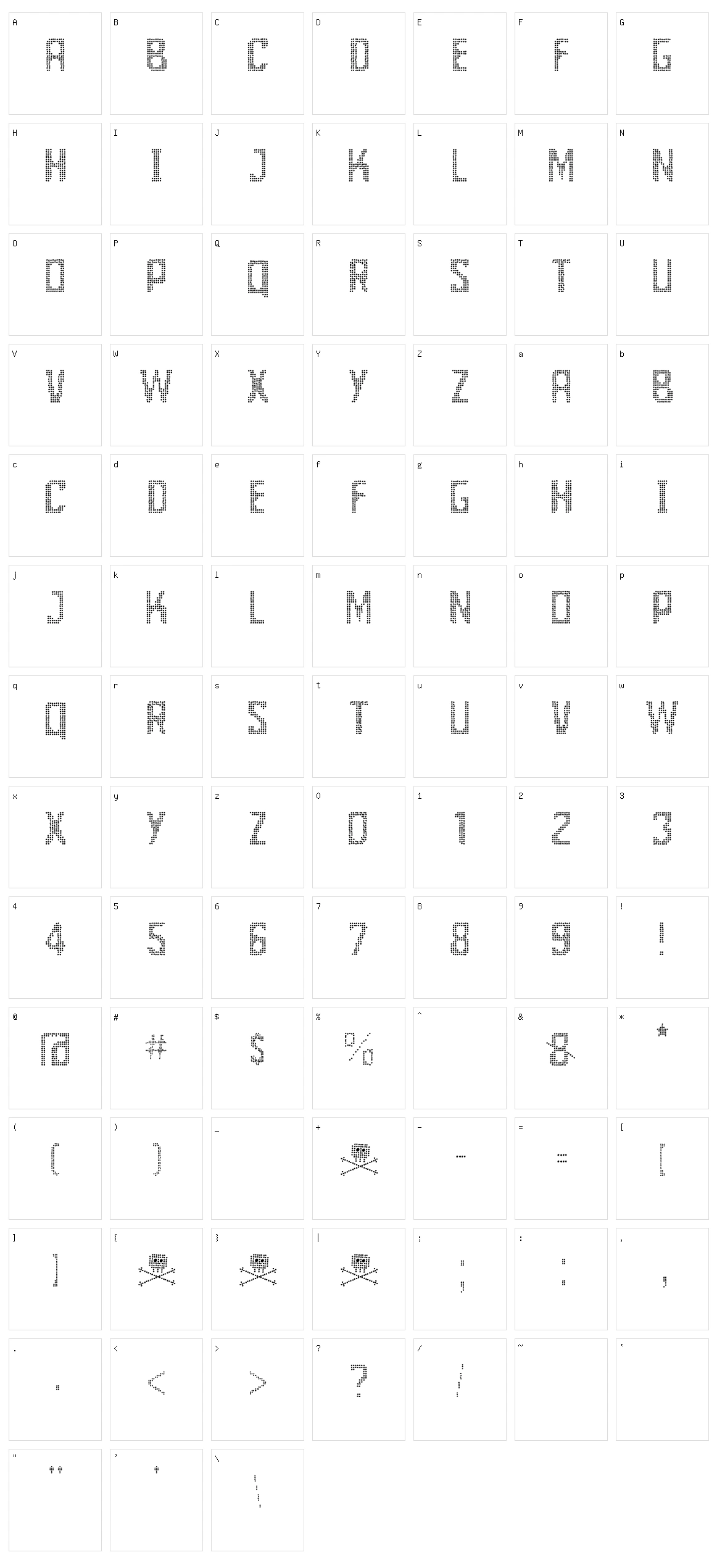
System Error Font is a digital display typeface inspired by system alert messages and glitch-style interfaces. This page is a legitimate font download and preview page, not an error or system warning message.
System Error Font is a futuristic LCD-style typeface designed for creative and experimental design projects. Despite its name, this page is not an error message and contains a downloadable font resource.